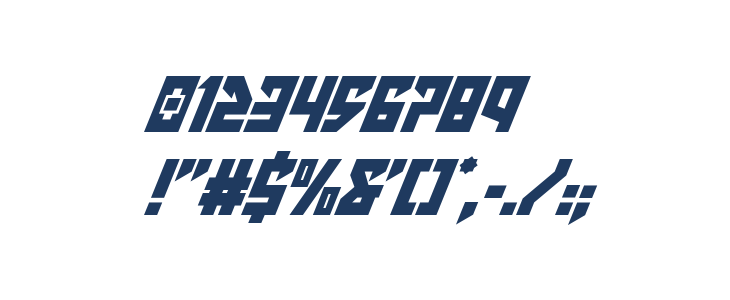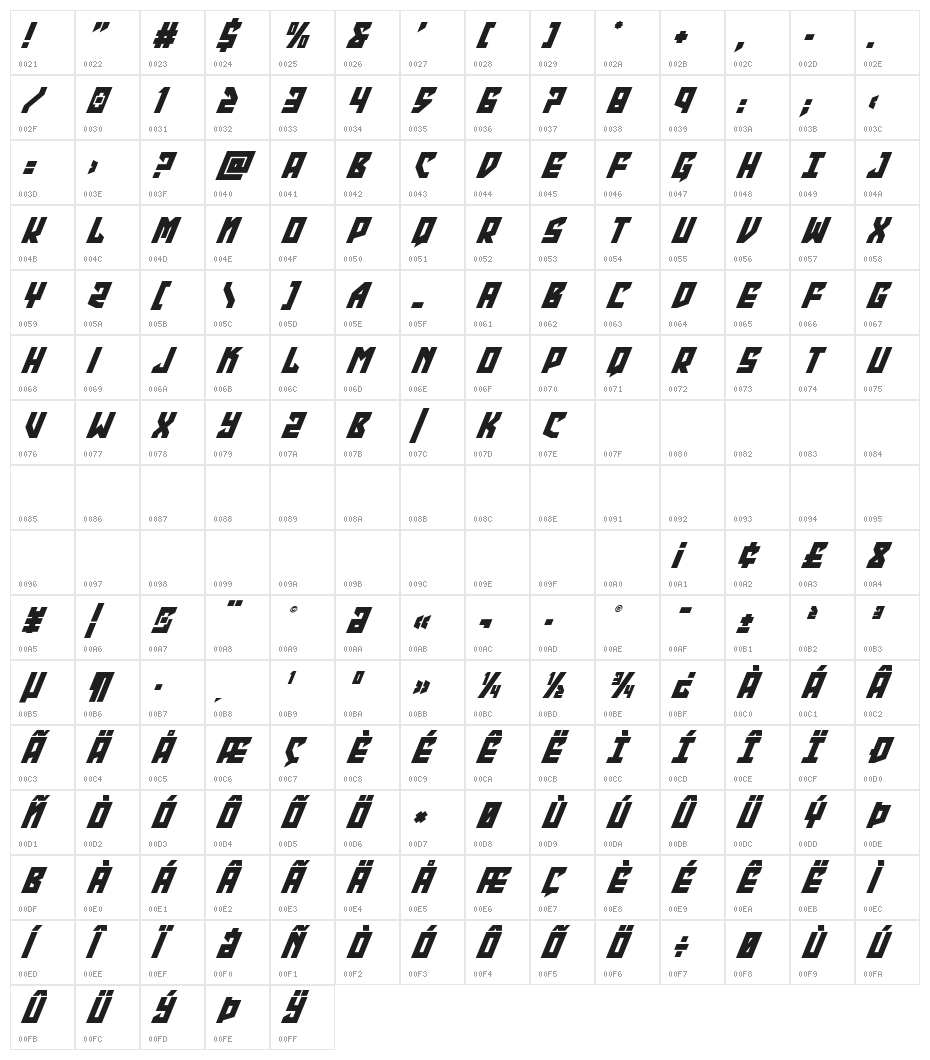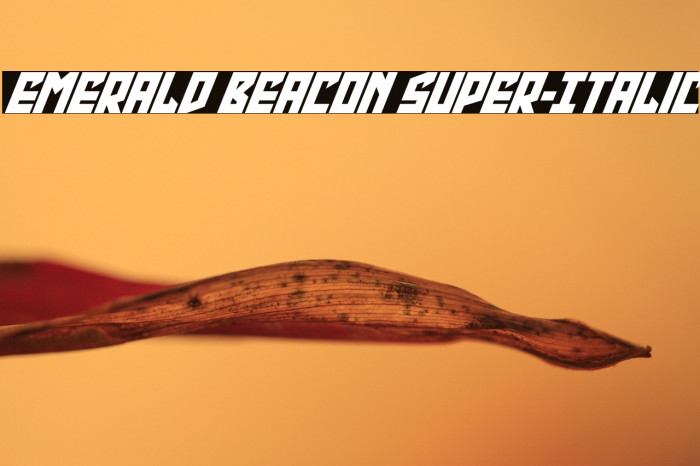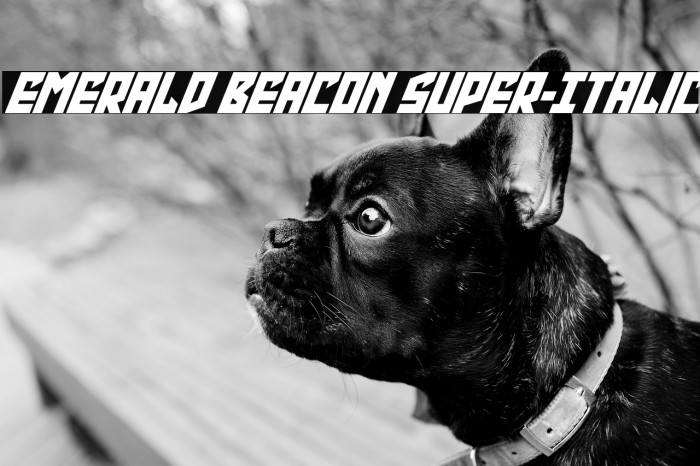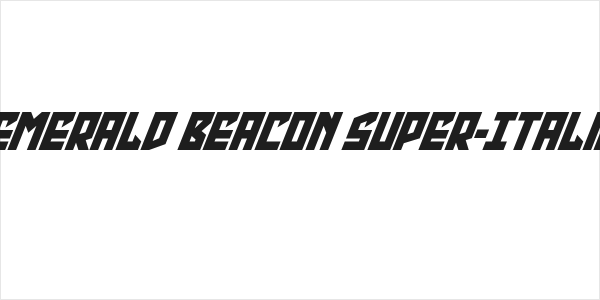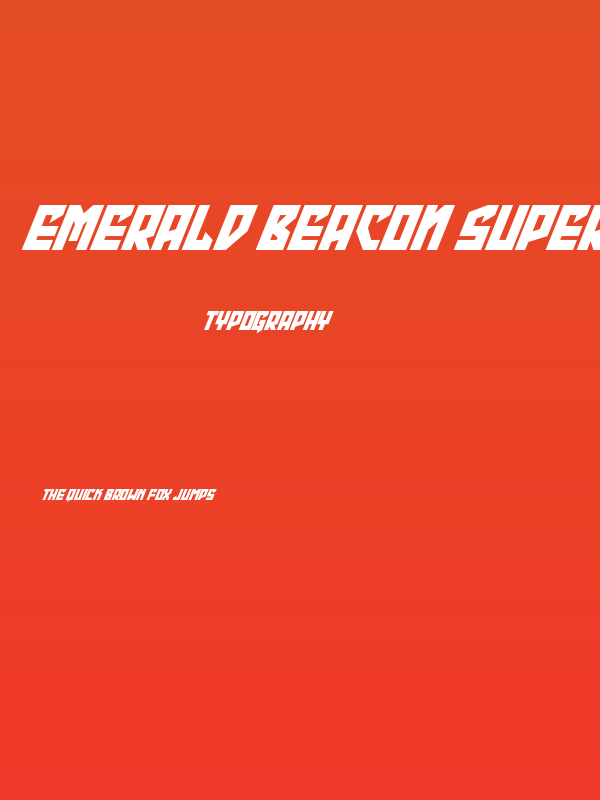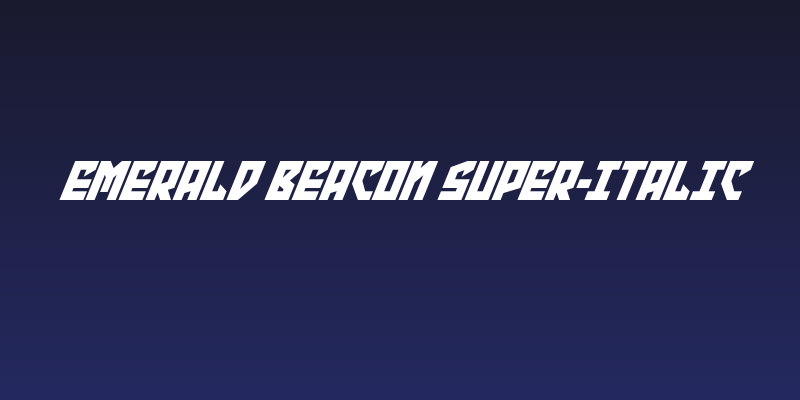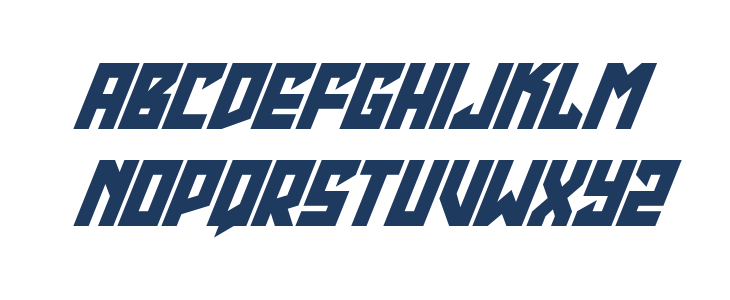
Emerald Beacon Super-Italic Font
Emerald Beacon Super-Italic Description
This font features a bold and dynamic style with a strong italic slant, creating a sense of movement and energy. The characters are sharply angular, with thick strokes that convey a sense of strength and modernity. The uppercase and lowercase letters maintain a consistent design, with the lowercase slightly smaller but equally impactful. Numbers and special characters follow the same bold and angular aesthetic, ensuring uniformity across all glyphs. The font's geometric nature and sharp edges make it stand out, ideal for attention-grabbing designs.
| Proposed Projects | Ideal for sports branding, action movie posters, video game titles, and dynamic advertising campaigns. |